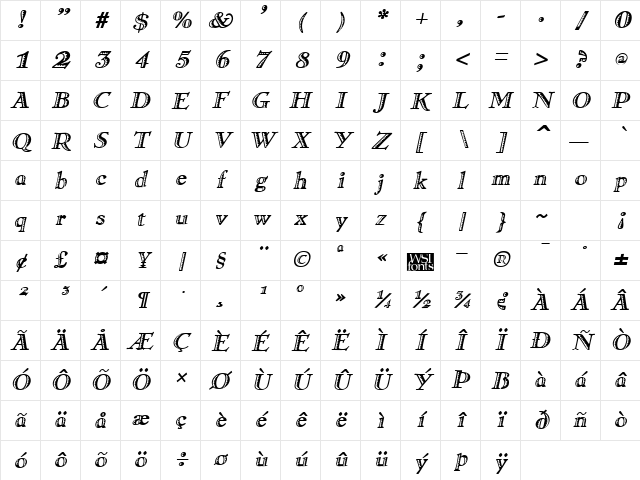
Ramona is a composed and adaptable typeface that performs quietly and consistently across a wide range of design contexts. The slanted form adds forward momentum and visual energy.